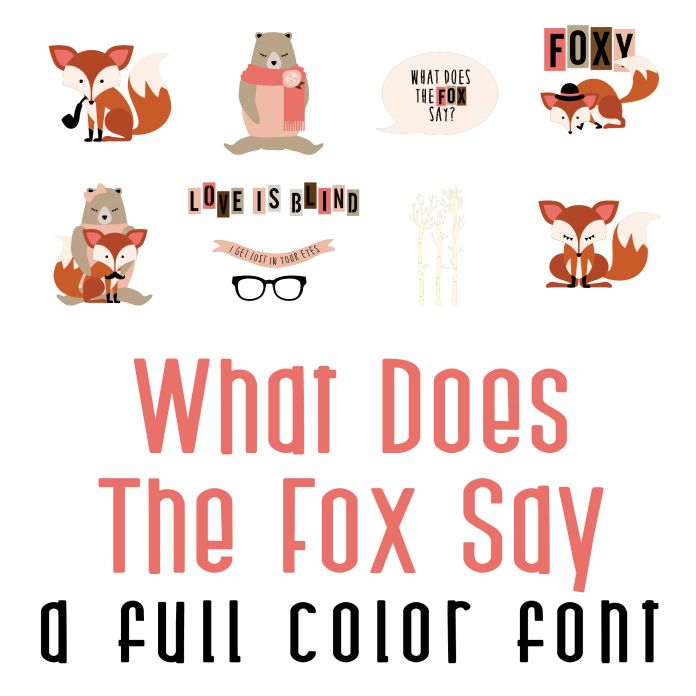
This fun full color font features 26 cute fox and other forest animals, fun phrases, and fall images perfect for cards, crafts, gifts, classrooms, planner stickers, scrapbook pages, decor and more!